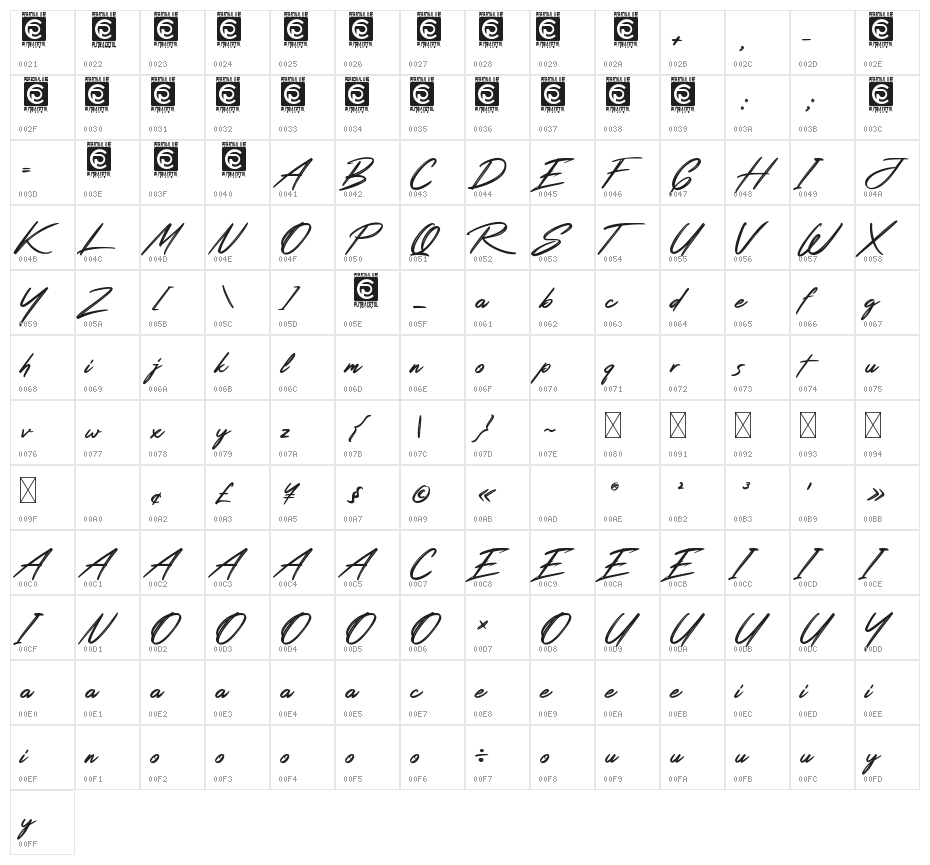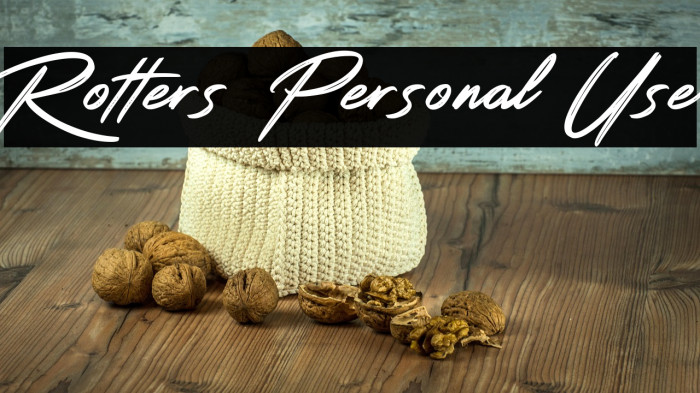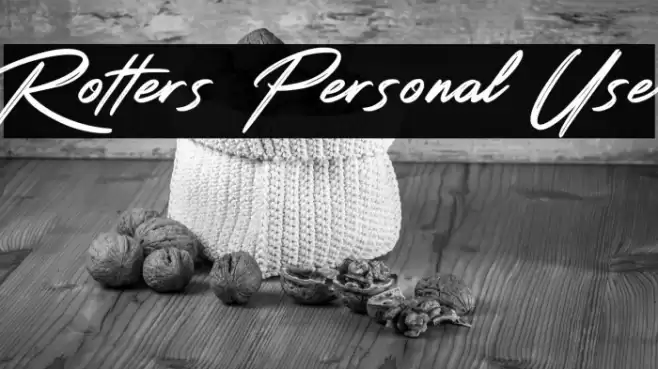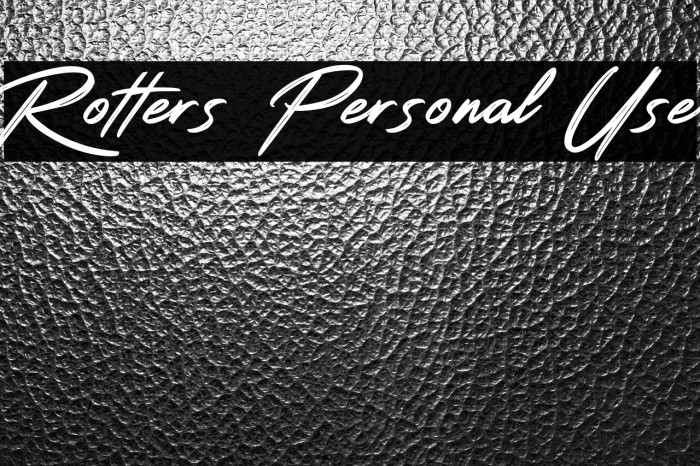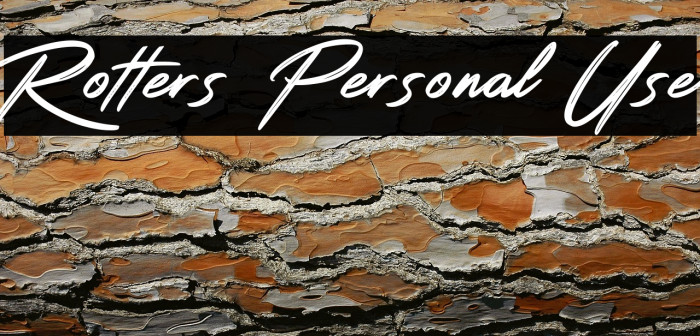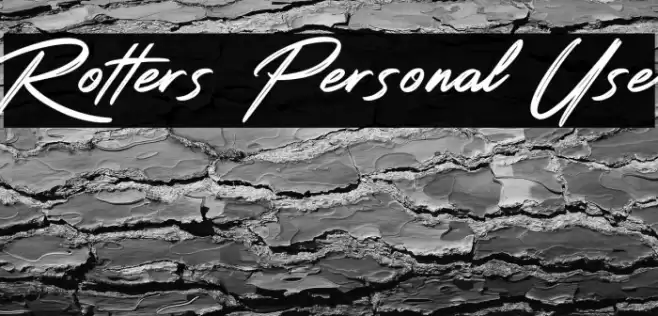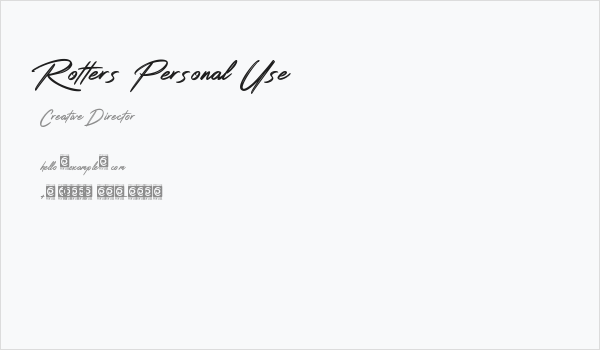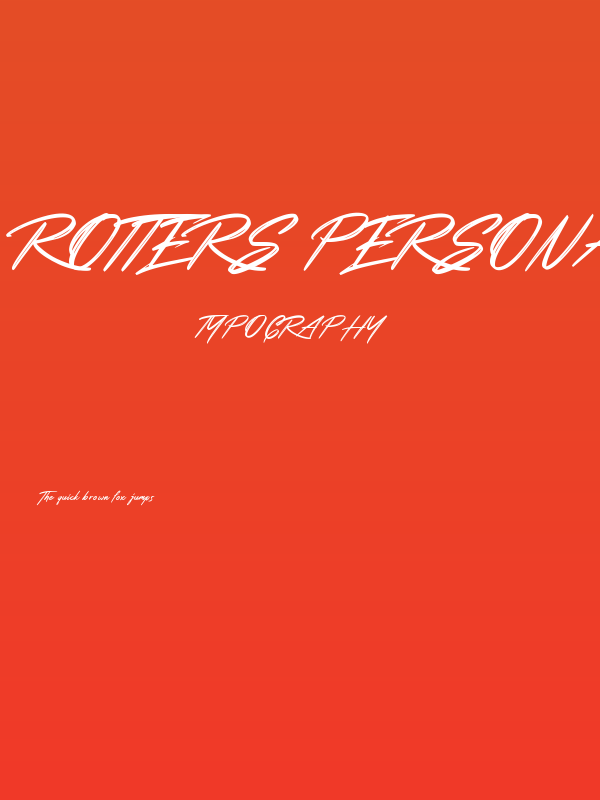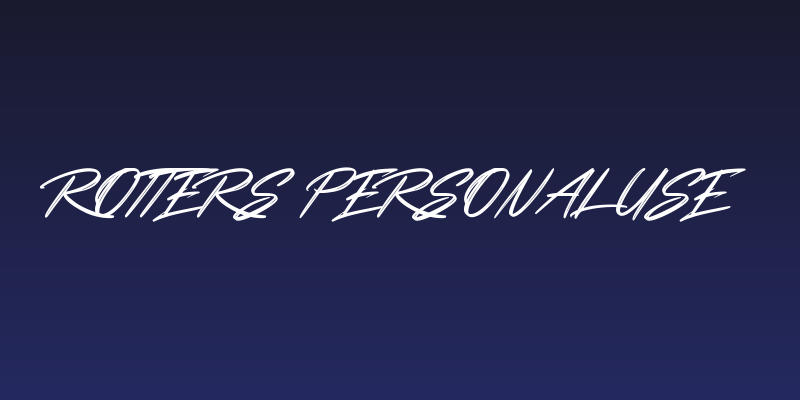
Rotters Personal Use Font
Rotters Personal Use Description
This font features a dynamic, handwritten style with a fluid and expressive character. The uppercase letters are bold and slightly slanted, giving a sense of motion and energy. The lowercase letters maintain a consistent flow, complementing the uppercase with their smooth curves and natural strokes. The font's overall appearance is both casual and artistic, making it suitable for creative projects. The special characters are integrated seamlessly, maintaining the handwritten aesthetic. This font is ideal for designs that require a personal touch, such as invitations, greeting cards, or artistic branding.